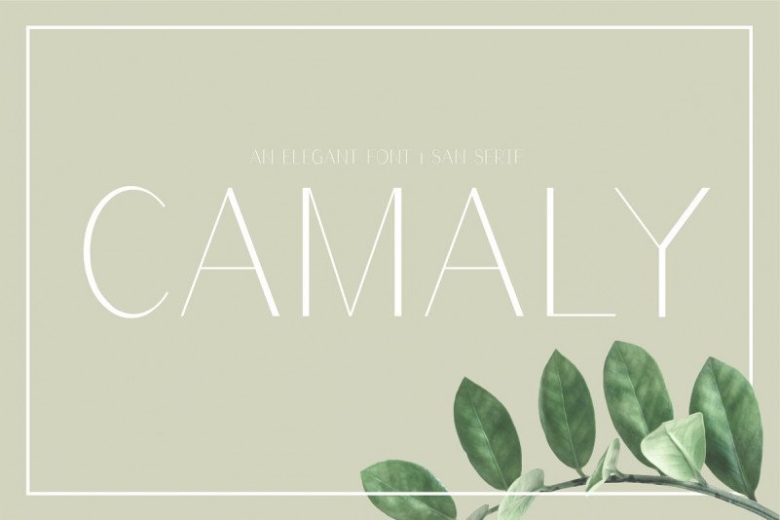
Camaly Sans Serif Font
This is an elegant san serif font, is a classy typeface with strong. Introducing Camaly Font. It’s a simple, but sharp display typeface with a clear yet powerful personality, created to not only optimize space, but also build contrast on the printed page and on the screen.
It’s designed to give that neo-vintage industrial feel in ‘titles and hierarchic subheadings, logotypes and cases of short and simple copywriting for the artisan, hand-made and small batch look.’